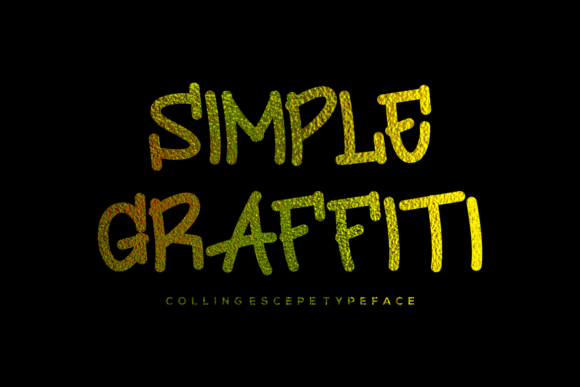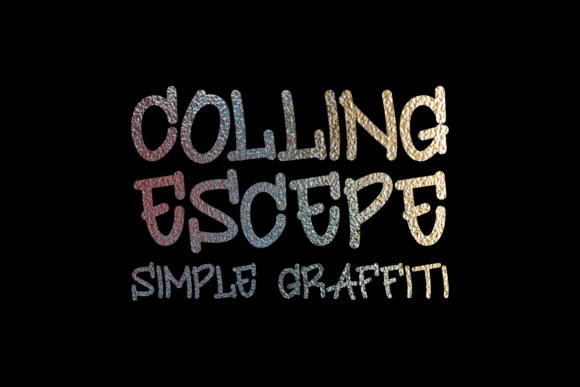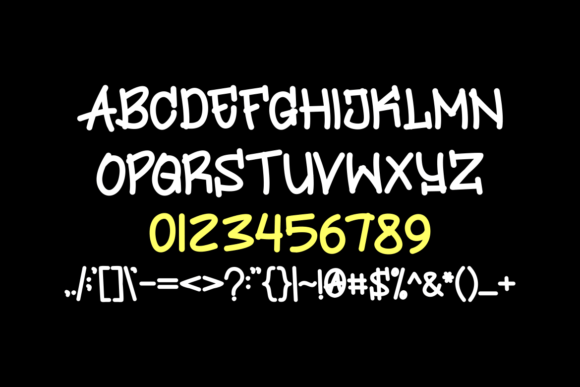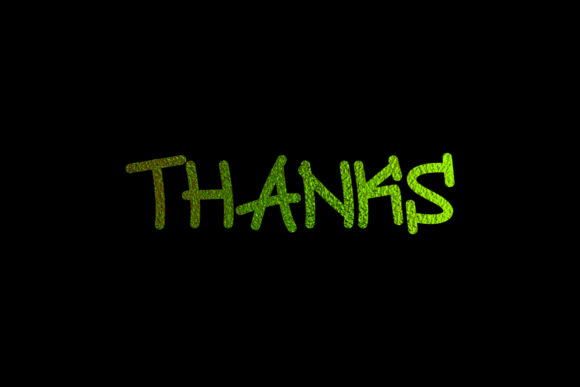
Introducing Collingescepe Font: The Bold and Powerful Graffiti Style Font
Are you looking for a font that can add a bold and edgy touch to your designs? Look no further than Collingescepe Font. This heavy font with a strong graffiti style is perfect for creating eye-catching designs that demand attention. With its thick, powerful letters, Collingescepe Font is ideal for use in posters, logos, street art, and any other design project that requires a bold and daring look.
What Makes Collingescepe Font Stand Out?
Collingescepe Font is not just another font with a graffiti style. What sets it apart is its unique blend of boldness and clarity. Despite its heavy and powerful appearance, the font remains easy to read, making it perfect for use in a variety of design projects. Whether you’re creating a poster for a music festival, a logo for a streetwear brand, or a mural for a city wall, Collingescepe Font is sure to make a statement.
Key Features of Collingescepe Font
- Bold and Heavy: Collingescepe Font features thick, powerful letters that are sure to grab attention.
- Graffiti Style: The font has a strong graffiti style that adds an edgy touch to any design.
- Easy to Read: Despite its bold appearance, Collingescepe Font remains clear and easy to read.
- Versatile: The font can be used in a variety of design projects, from posters and logos to street art and murals.
Use Cases for Collingescepe Font
Collingescepe Font is perfect for designers and crafters who want to add a bold and edgy touch to their designs. Here are some use cases for the font:
- Posters: Use Collingescepe Font to create eye-catching posters for music festivals, concerts, or art exhibitions.
- Logos: The font is perfect for creating bold and daring logos for streetwear brands, music labels, or art galleries.
- Street Art: Collingescepe Font is ideal for use in street art, such as murals, stencils, or graffiti.
- Branding: Use the font to create a bold and memorable brand identity for your business or organization.
Tips for Using Collingescepe Font
Here are some tips for using Collingescepe Font in your designs:
- Use it boldly: Collingescepe Font is designed to be used boldly, so don’t be afraid to experiment with different sizes and colors.
- Pair it with other fonts: The font pairs well with other bold and edgy fonts, as well as clean and simple fonts.
- Experiment with colors: Collingescepe Font looks great in a variety of colors, from bright and bold to muted and pastel.
Collingescepe Font is a bold and powerful font with a strong graffiti style that’s perfect for designers and crafters who want to add an edgy touch to their designs. With its thick, powerful letters and easy-to-read design, the font is ideal for use in a variety of design projects, from posters and logos to street art and branding. Whether you’re a seasoned designer or just starting out, Collingescepe Font is sure to become a go-to font in your collection.